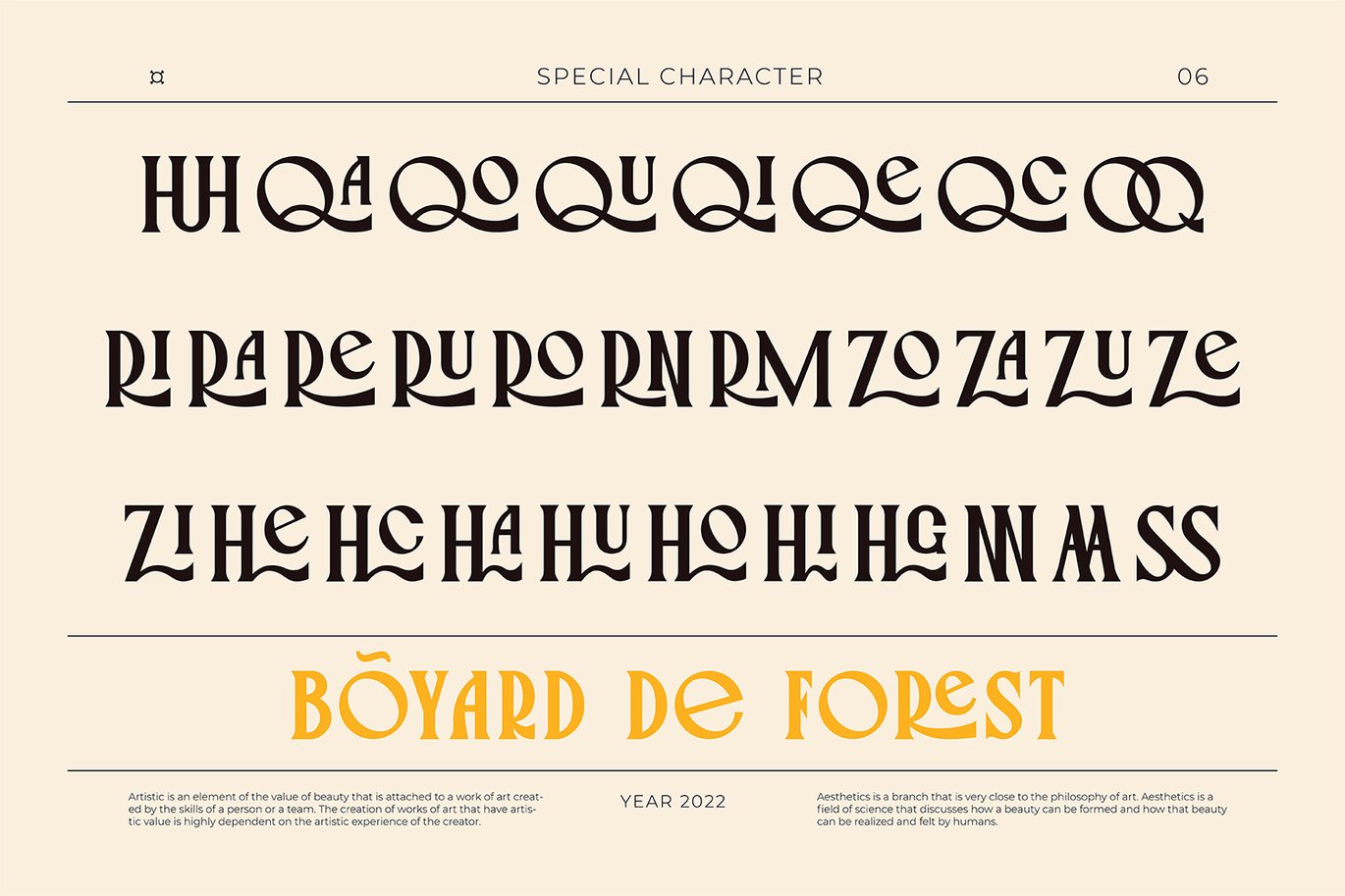
PALMORE – Vintage Rounded Serif Font
Palmore mixes tall, condensed letters with very round O and C shapes, which gives it a slightly odd, likeable rhythm. The serifs are soft and flared. CCS-Type (Creative Corner Studio) released it in 2022, and the “Greetings from Palmore” postcard in the specimen, with a line about the eighties, fits it well.
Its party trick is the ligature set. The special character page shows dozens of joined pairs, such as HH, QA, RA, RE, ZO and SS, which let you build headlines that look hand-lettered. The family comes in four weights, Light, Regular, Semibold and Bold, with over 300 glyphs.
Best uses for Palmore
• Film and theatre posters
• Travel and tourism graphics
• Retro clothing and lifestyle brands
• Book covers
• Restaurant and bar signs
Palmore pairs well with a clean, light sans. Raleway matches the spaced-out caps in the specimen. Roboto Condensed italic works for credits, as in the “Sailormen” film poster. For body text, Lora keeps a classic tone.
What free font is similar to Palmore?
Limelight and Federo are open-licence display fonts with a similar retro, condensed feel.